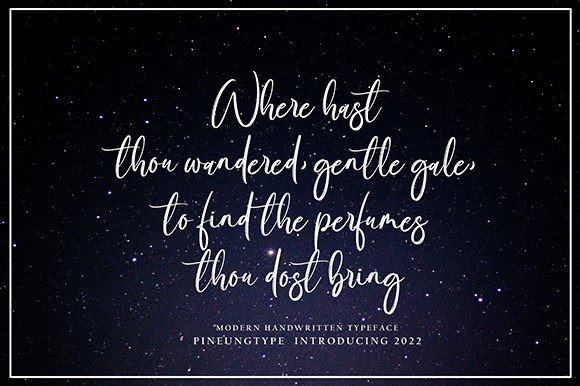
About Euretey Font
Euretey is a fresh and cursive script font with a new style. It is perfect for many different projects like quotes, logos, blog headers, posters, banding, letters, invitation, stationery, etc.